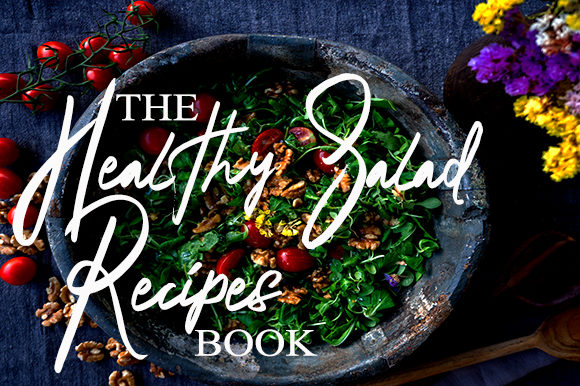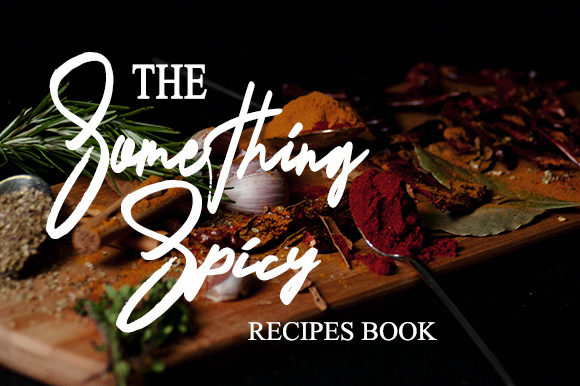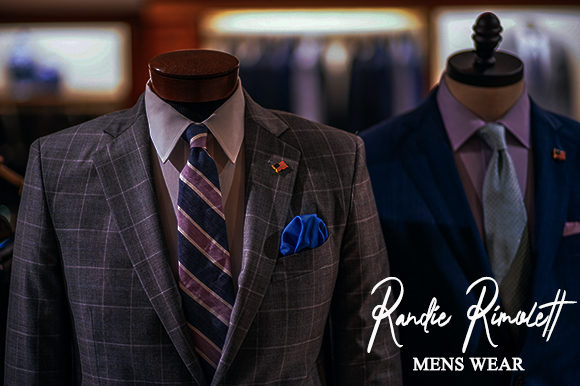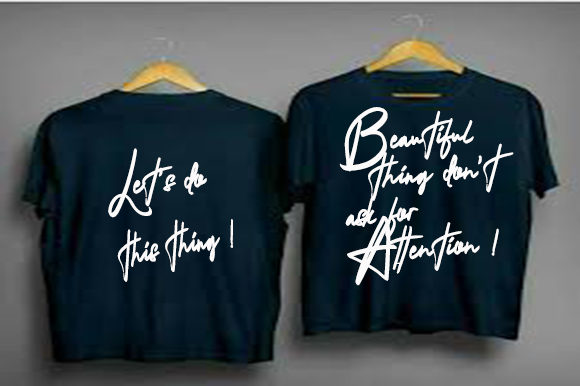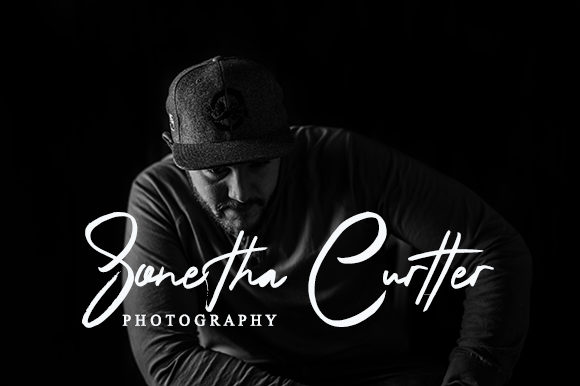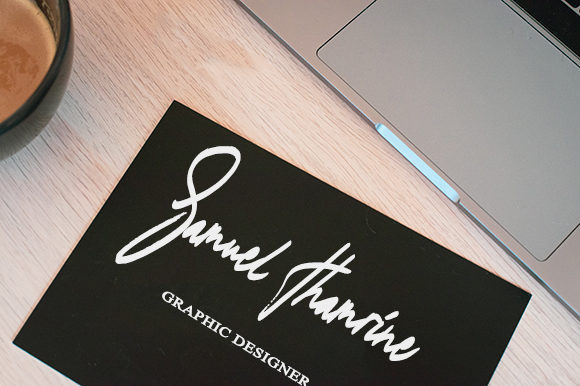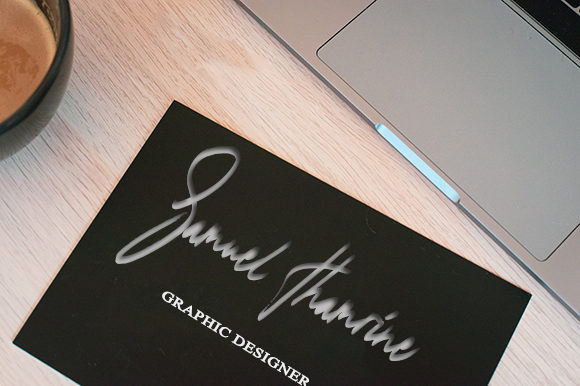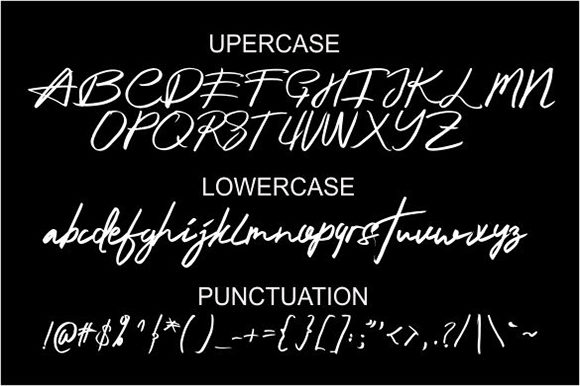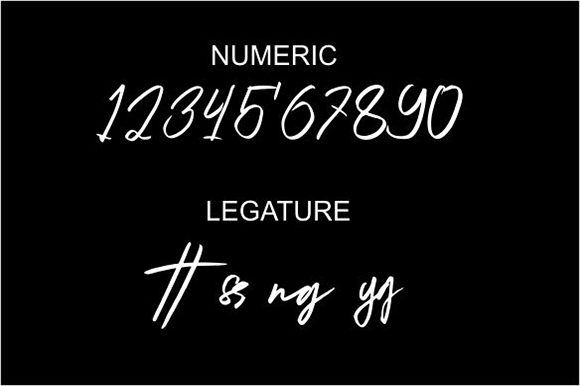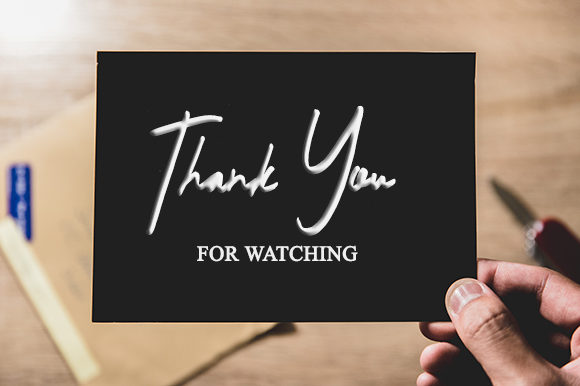
The Samthown Font
About The Samthown Font
The Samthown is a stunning handwritten font with an undeniably organic feel. It will add a retro touch to any creative project!